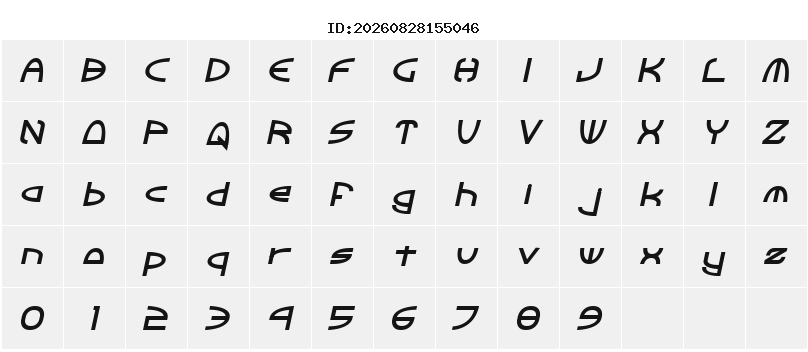
Tinker Round Bold Italic Preview
• Font Name: Tinker Round Bold Italic
• Full Font Name: Tinker Round Bold Italic
• PostScript Name: Tinker-RoundBoldItalic
About Tinker Round Bold Italic.ttf
Tinker Round Bold Italic.ttf is a modern, elegant sans-serif font designed for ultimate readability and visual harmony. Perfect for branding, headlines, web design, and print materials.